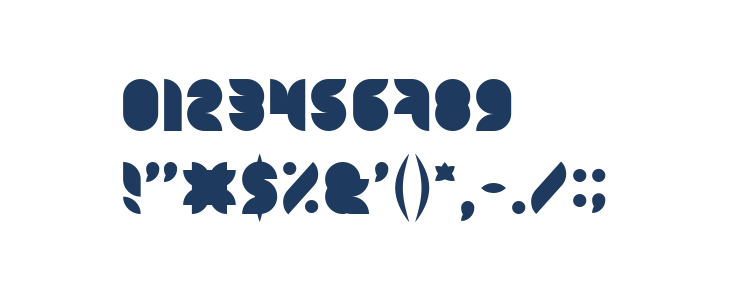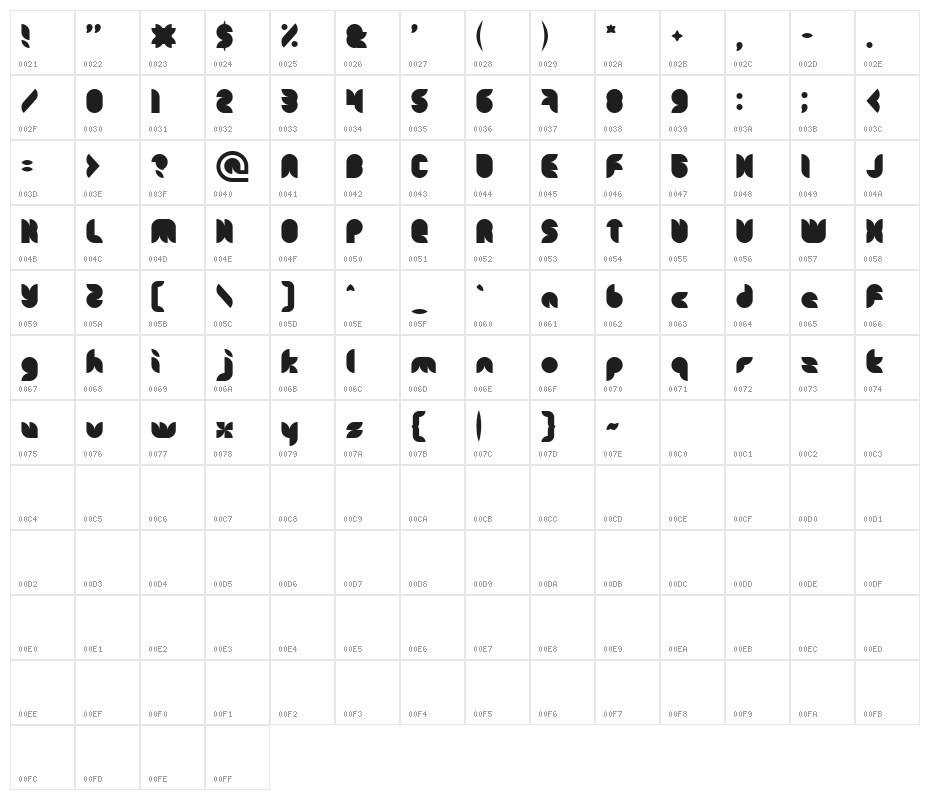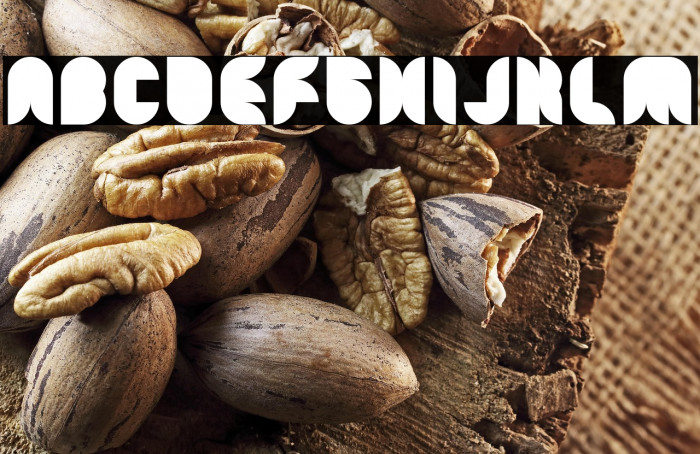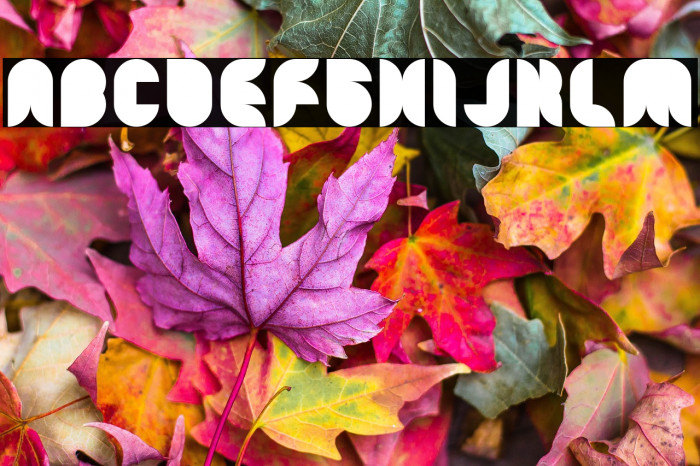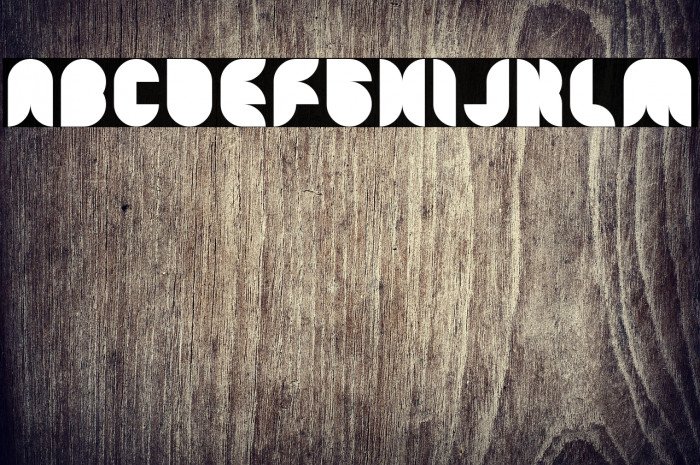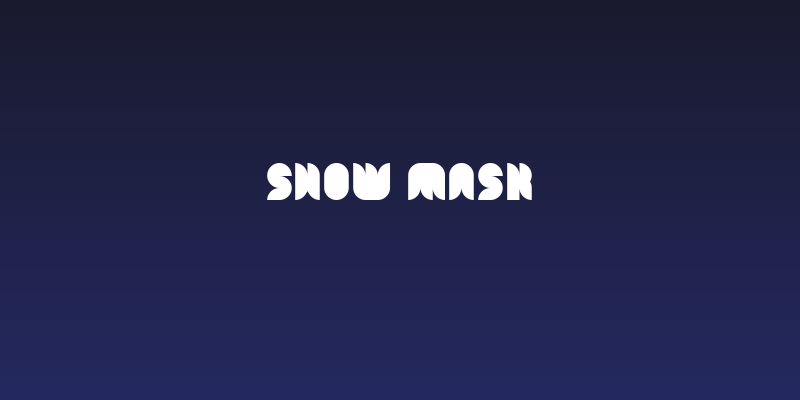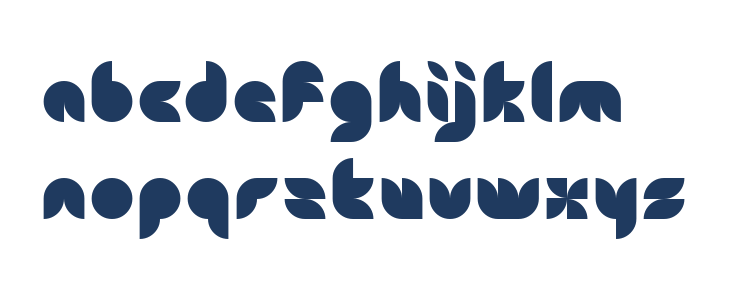
Snow Mask Font
Snow Mask Description
This font features a bold, geometric design with a distinctively modern and playful aesthetic. Each character is crafted with a unique combination of curves and straight lines, creating a sense of movement and energy. The uppercase and lowercase letters maintain a consistent style, while the numbers and special characters complement the overall look. The font's boldness and unique shapes make it stand out, ideal for eye-catching designs. Its geometric nature gives it a futuristic feel, while the rounded edges soften the overall appearance, making it approachable and friendly.